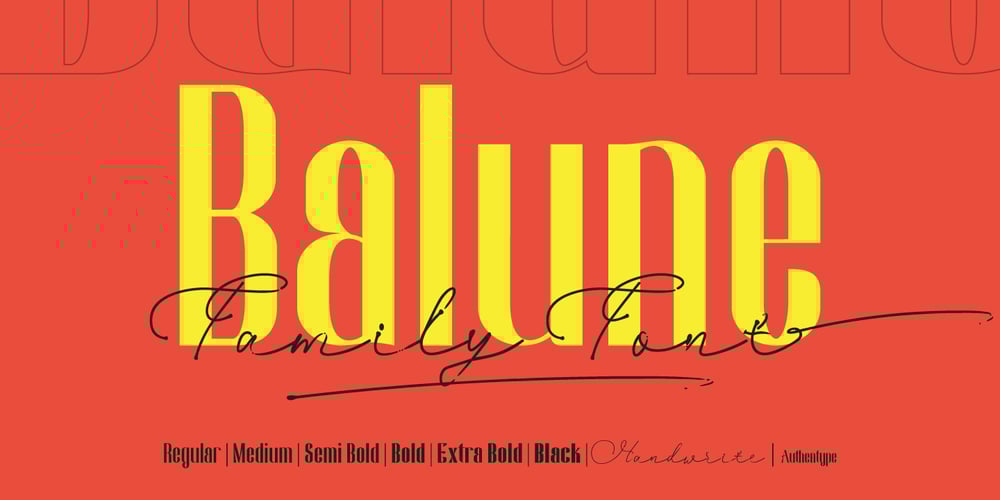
Balune Font Family was designed by Ekayasa and published by Authentype. Balune contains 7 styles and family package options. Balune Family Font created by Authen Type. This font features a classic and elegant style, perfect for:Balune Family Font designs are very beautiful to use in branding designs for brochures, logos, and invitations with a neat and varied font concept. Script font features a gorgeous handwritten style that infuses this beautiful script with authenticity and charm!Standard glyphs uppercase and lowercase letters Numerals, a large range of punctuation and ligatures. Lowercase letters include ending swashes.Works on PC & Mac.Simple installations, accessible in Adobe Illustrator, Adobe Photoshop, Adobe InDesign, even work on Microsoft Word. PUA Encoded Characters – Fully accessible without additional design software. Fonts include multilingual support for; ä ö ü Ä Ö Ü ß ¿ ¡Image used: All photographs/pictures/logo/vectors used in the preview are not included, they are intended for illustration purposes only.Thank you for your purchase!Hope you enjoy our font!Designers: Ekayasa.